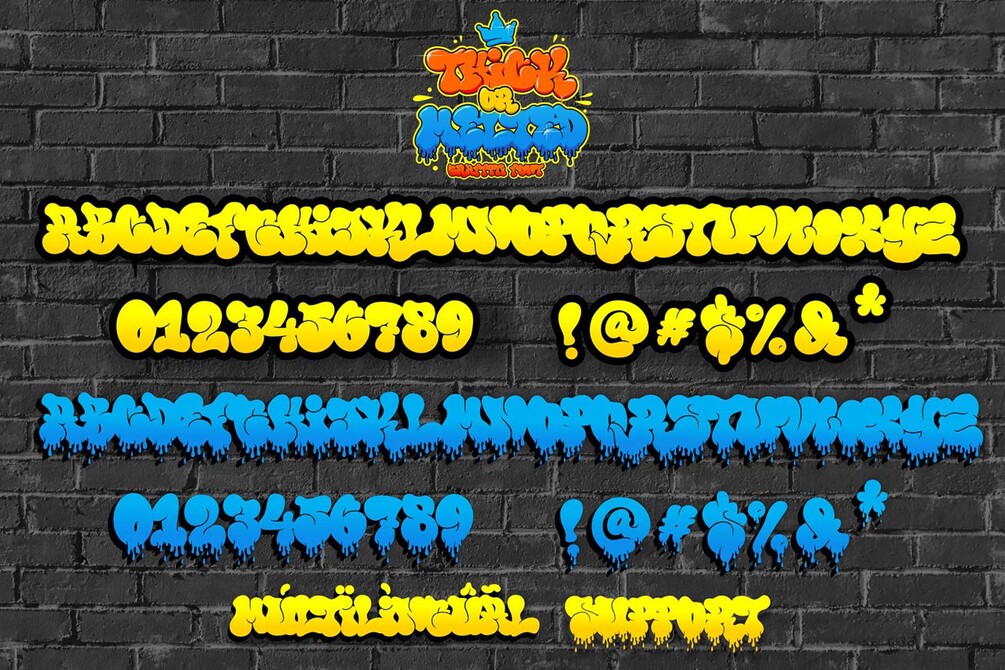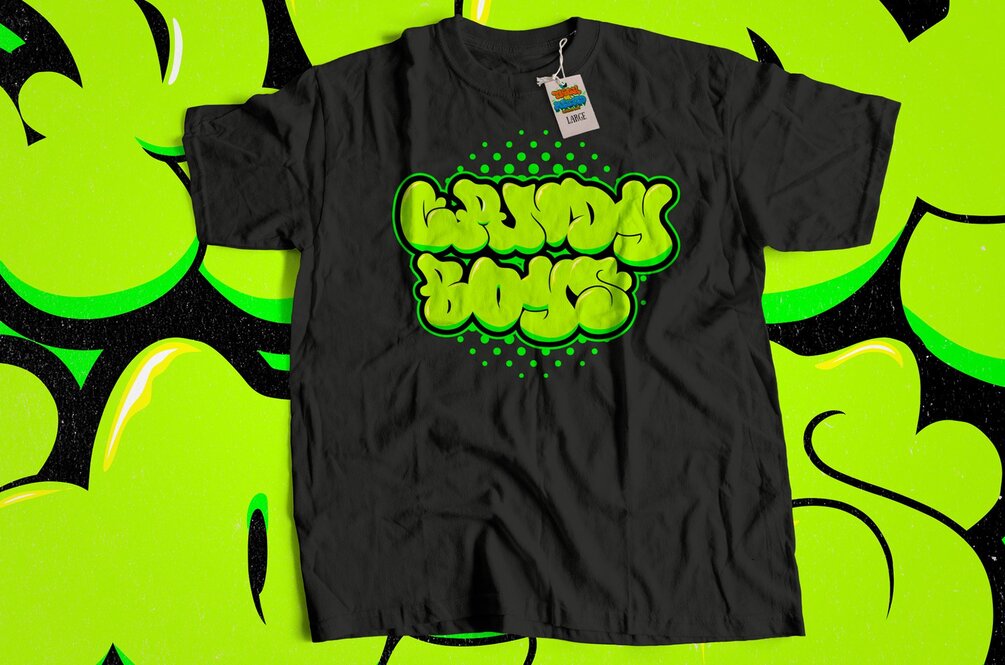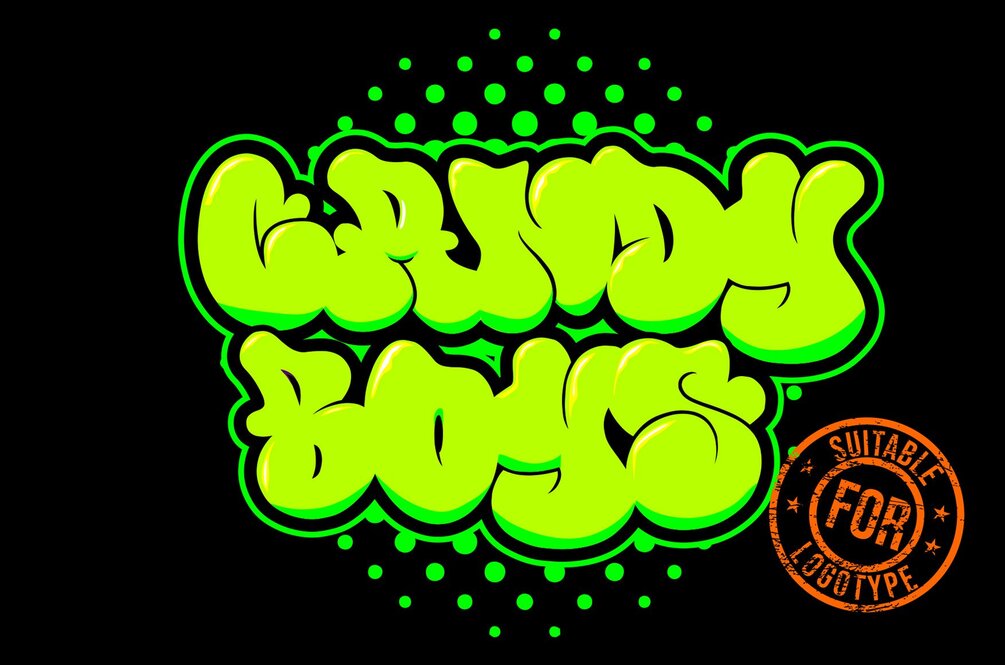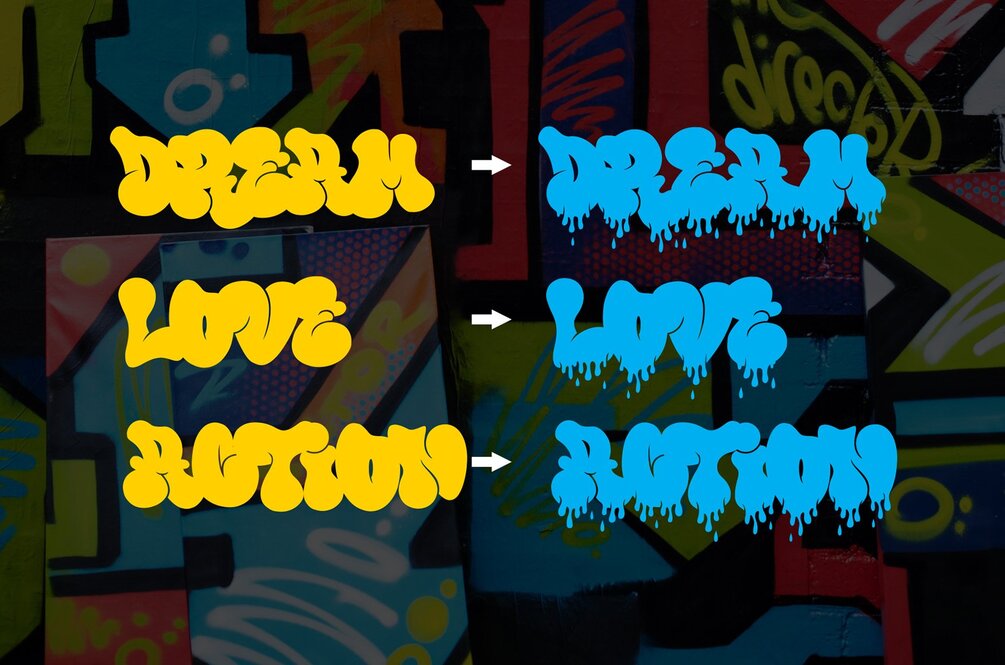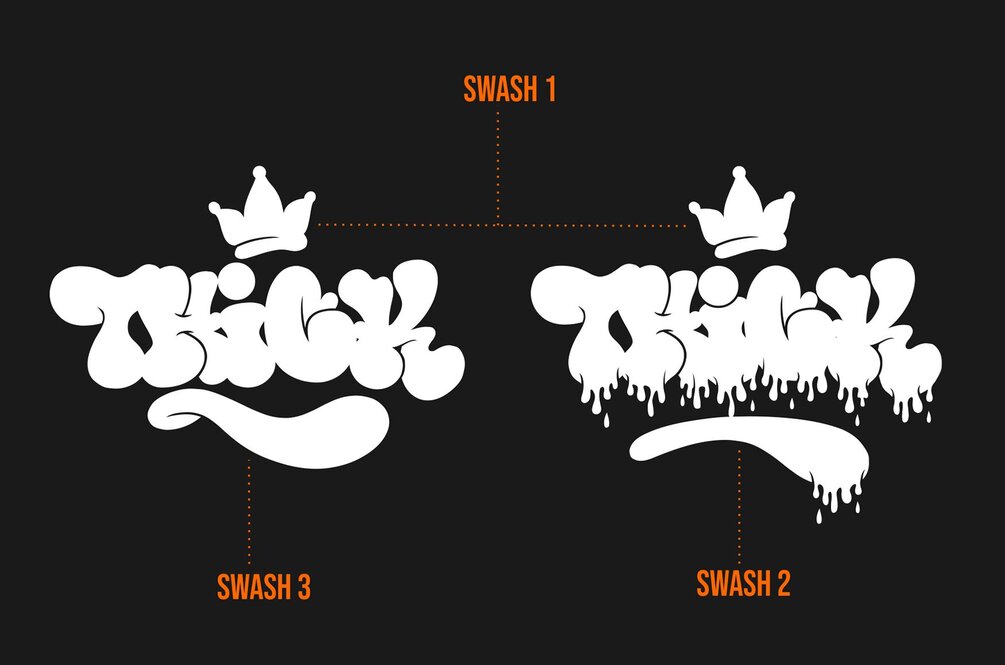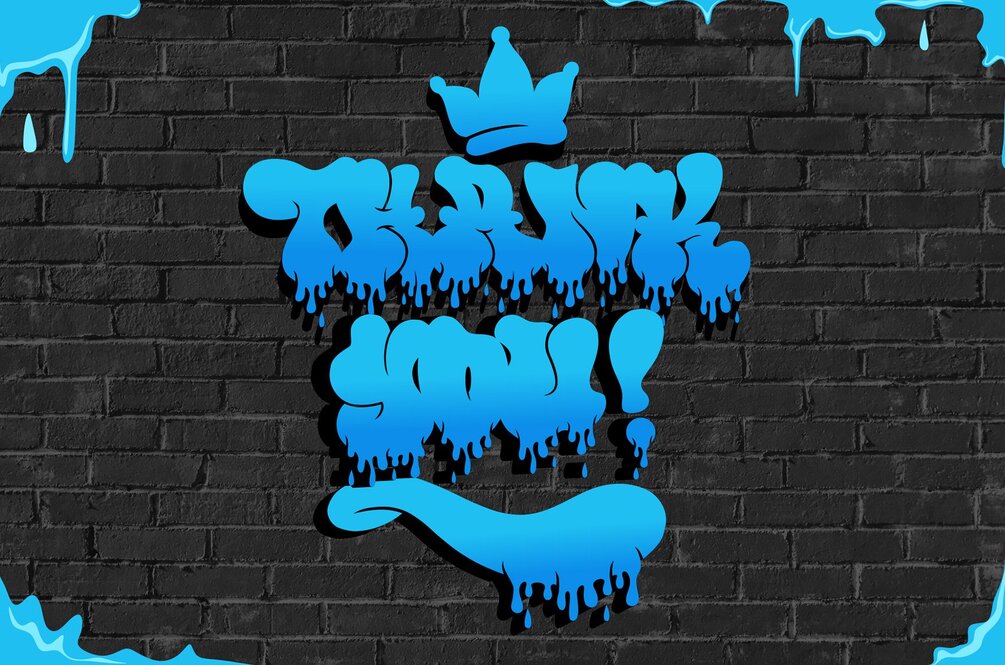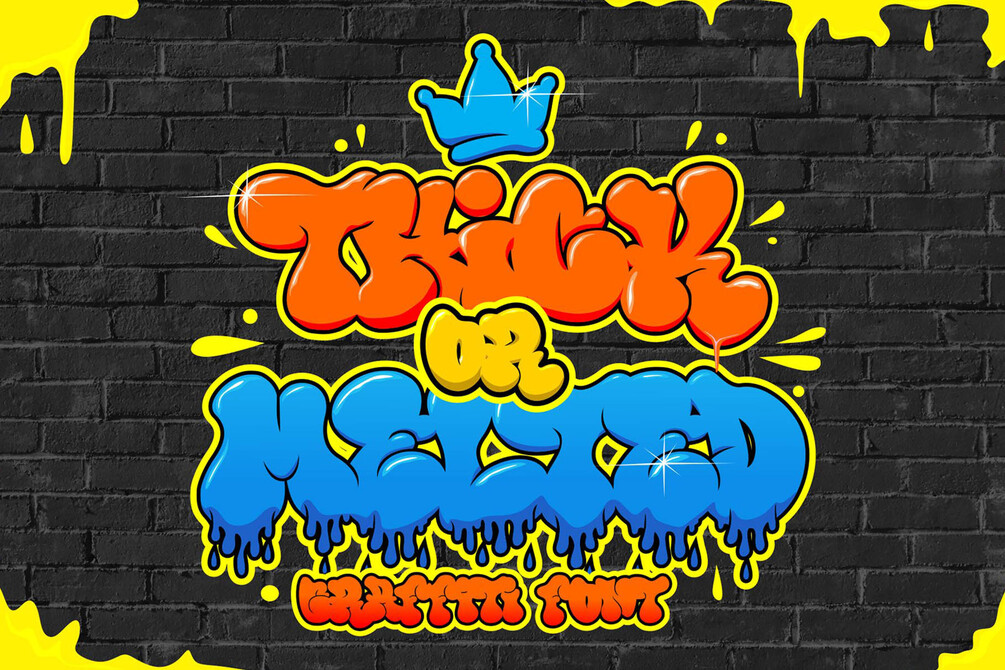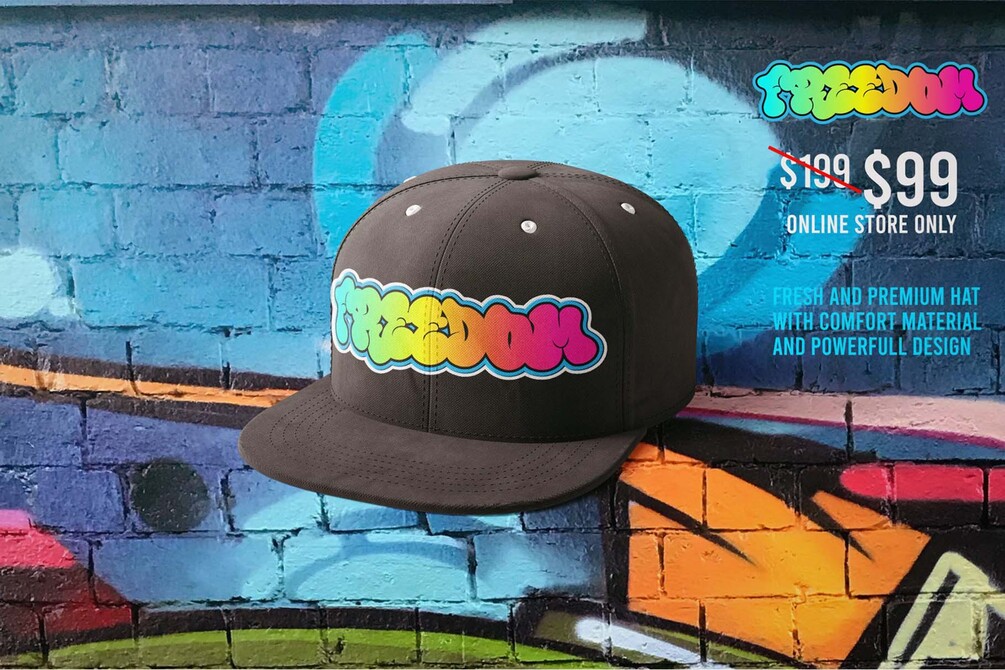
Thick or Melted | Dripping Graffiti Font | Instant Download for canva & procreate font
Thick or Melted is a spectacular decorative font with a thick and bubble graffiti style. there are 2 types fonts, regular style and dripping style. It will elevate a wide range of design projects to the highest level, be it branding, headings, wedding designs, invitations, signatures, logotype, wall art illustration, apparel, labels, and much more!